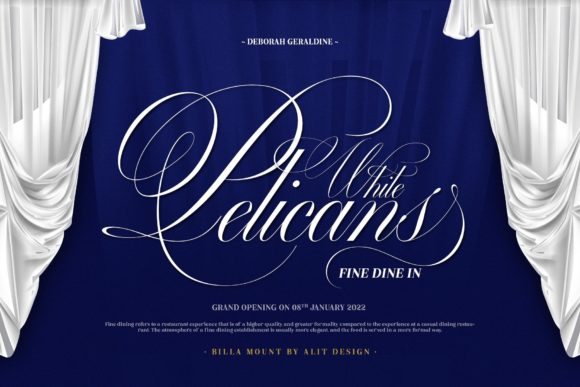
The Elusive Font: A Love Letter to Billa Mount
I still remember the frustration of working on a design project, hours spent searching for the perfect font, only to come up empty-handed. My client wanted something luxurious, something that would make their brand stand out, and I was determined to deliver. That’s when I stumbled upon Billa Mount, a stunning script font that would change the game. In this article, I’ll share my experience with Billa Mount, its features, and how to make the most of it in your designs.
First Impressions: A Luxurious Script Font
Billa Mount is a contemporary script font that exudes luxury and sophistication. Its ravishing style is perfect for designers, crafters, and creative hobbyists looking to elevate their designs. With its PUA encoding, accessing glyphs and swashes is a breeze, making it a joy to work with.
So, what makes Billa Mount special? Here are a few things I love about this font:
- ✨ Luxurious and elegant: Billa Mount is perfect for high-end designs, such as luxury branding, packaging, and advertising.
- ✅ PUA encoded: Easy access to glyphs and swashes, making it simple to customize your designs.
- 🎉 Contemporary and fresh: Billa Mount has a unique style that will make your designs stand out from the crowd.
Of course, no font is perfect, and Billa Mount has a few quirks:
- 🤔 Limited use in body text: Billa Mount is best used for headlines and titles, as it may be too ornate for body text.
- ⚠️ Requires OpenType features: To get the most out of Billa Mount, you’ll need to use OpenType features, which can be a bit tricky for beginners.
The Story Behind Billa Mount
While the origins of Billa Mount are shrouded in mystery, it’s clear that this font was designed with luxury and elegance in mind. Imagine a designer, fueled by passion and creativity, crafting a font that would exceed expectations. That’s the story behind Billa Mount – a font that’s sure to leave a lasting impression.
| Author | Alit Design |
| What is Billa Mount? | Billa Mount is a luxurious and contemporary script font. |
| Is Billa Mount PUA encoded? | Yes, Billa Mount is PUA encoded, making it easy to access glyphs and swashes. |
| Can I use Billa Mount in body text? | While possible, Billa Mount is best used for headlines and titles, as it may be too ornate for body text. |
With Billa Mount, you’ll never be stuck for a font again. Its luxurious and elegant style makes it perfect for designers, crafters, and creative hobbyists looking to elevate their designs. Give Billa Mount a try and experience the power of beautiful typography!